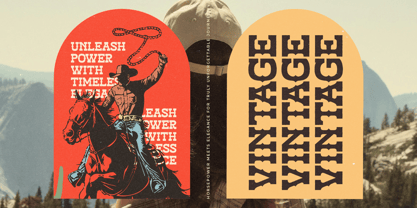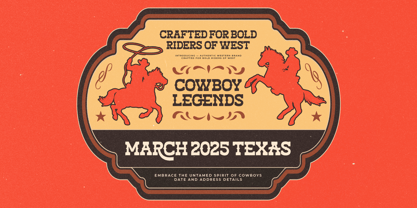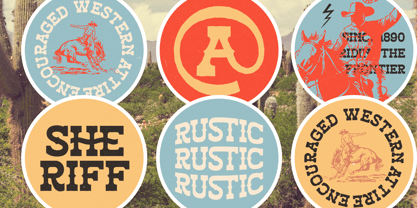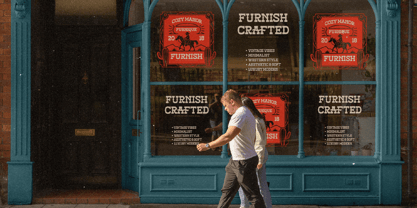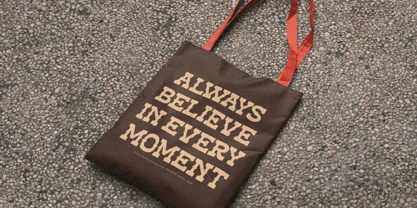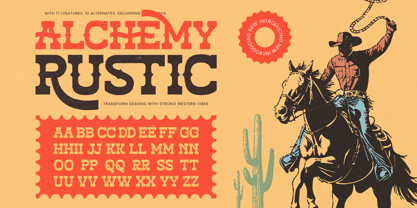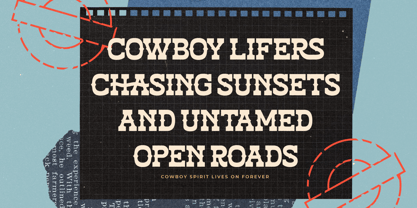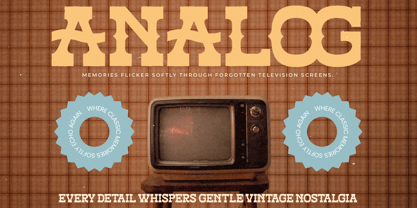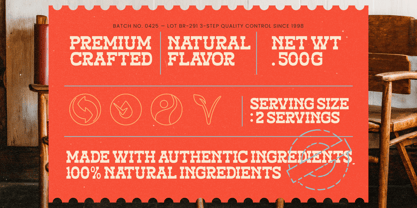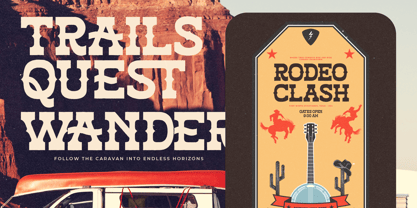
Alchemy Rustic
by Timelesstype Studio
The Alchemy Rustic Font Family was designed by Heru Utama Putra and published by Timelesstype Studio. Alchemy Rustic contains 2 styles and family package options. More about this family
Alchemy Rustic is a bold western-style display font inspired by vintage rodeo posters, cowboy lettering, and rugged Americana aesthetics. Its strong slab serifs, decorative curves, and sturdy shapes capture the spirit of the Wild West—making it perfect for retro branding, beer and BBQ packaging, rodeo event posters, badges, signage, apparel graphics, and adventurous outdoor-themed designs. This font brings a gritty yet charismatic rustic tone that instantly transforms any layout with authentic western vibes.